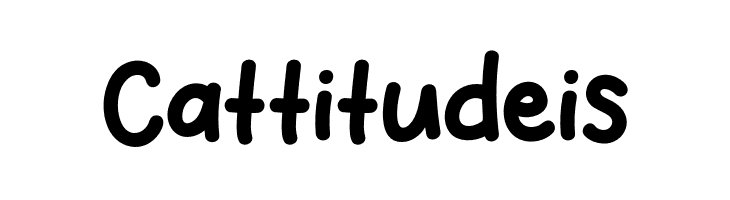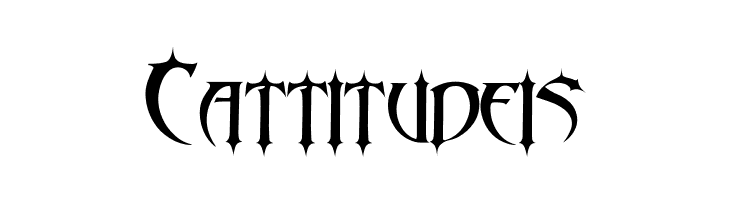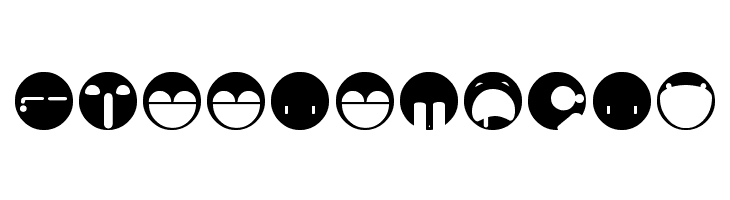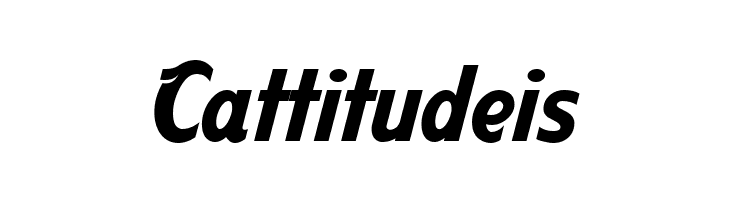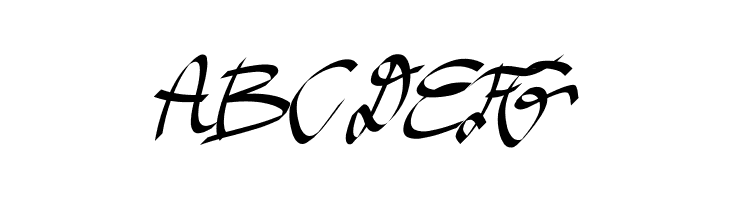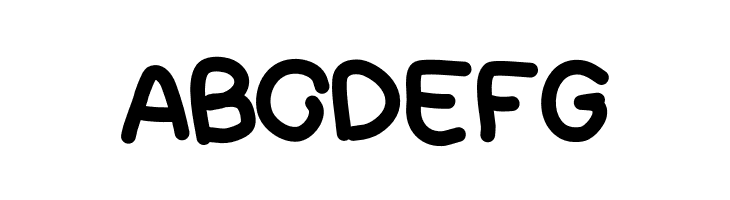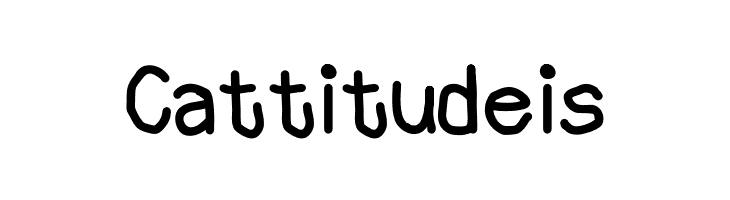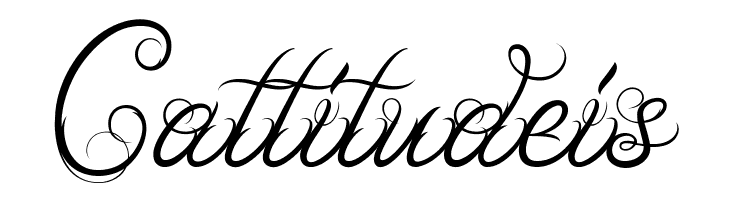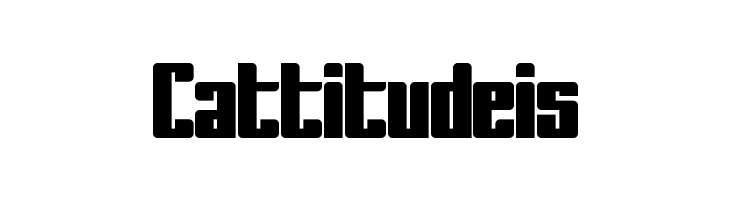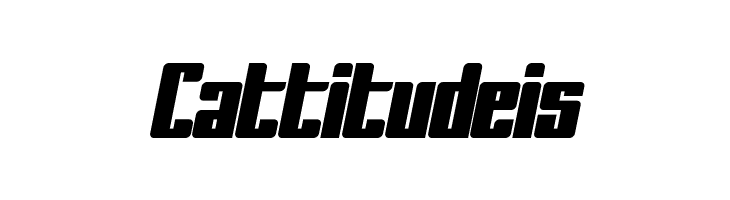
A bold, 3D geometric font with shadowed outlines for a striking effect.
A modern, geometric font with clean lines and uniform proportions.
A graceful and elegant script font with flowing cursive letterforms.
A playful and whimsical script font with decorative loops and flourishes.
A bold, narrow font with a strong vertical emphasis, ideal for impactful designs.
A bold, expressive handwritten font with thick strokes and a playful style.
A whimsical, hand-drawn font with elongated, irregular letterforms.
A playful, bold font with rounded, bubbly characters.
A dynamic and elegant script font with flowing letterforms and artistic flair.
A whimsical and decorative font with playful swirls and loops.
A playful, bold handwritten font with rounded letterforms.
A bold, impactful font with strong, thick strokes and a modern classic appeal.
A playful, handwritten script font with a whimsical and elegant style.
A playful, whimsical script font with smooth, flowing lines and a hand-drawn appearance.
A bold, geometric font with tribal and artistic elements.
A modern, geometric font with rounded edges and consistent stroke width.
A bold, hand-drawn font with an energetic and graffiti-like style.
A bold, hand-drawn font with a brush-like texture and dynamic style.
A bold, dynamic font with sharp, angular edges and unique cutouts.
A bold, modern font with angular cutouts and a dynamic style.
A bold and dynamic font with sharp angles and smooth curves.
A bold, italic font with angular, dynamic characters.
A bold, italic font with sharp, angular cuts and a modern, energetic style.
A bold, italic font with angular, modern design elements.
An elegant script font with flowing cursive style and graceful swashes.
An elegant, decorative script font with intricate swashes and flowing letterforms.
An elegant script font with flowing cursive letters and high contrast strokes.
A classic serif font with modern elegance and medium contrast.
A bold, vintage-style font with high contrast and strong presence.
A playful handwritten font with fluid, whimsical letterforms.
A cursive, handwritten font with a lively and artistic style.
A bold, rounded font ideal for impactful headlines and designs.
A bold, rounded font with a strong, cohesive appearance.
A bold, expressive handwritten font with fluid strokes and artistic flair.